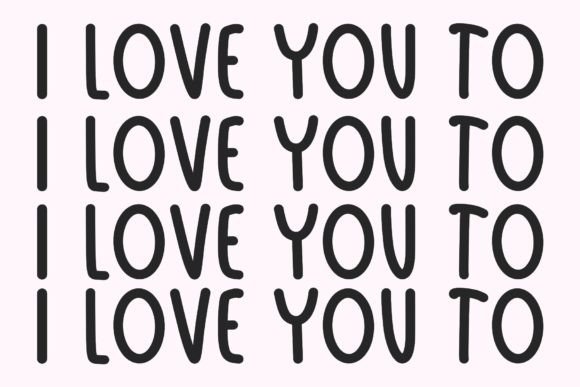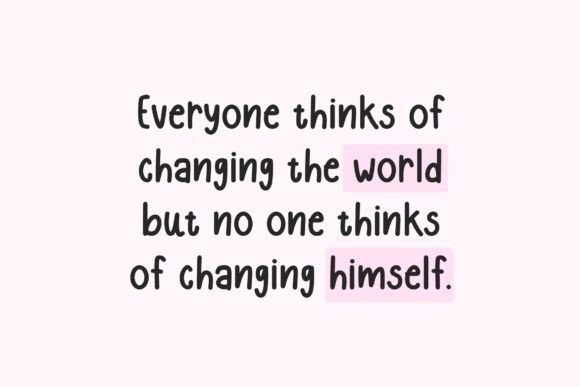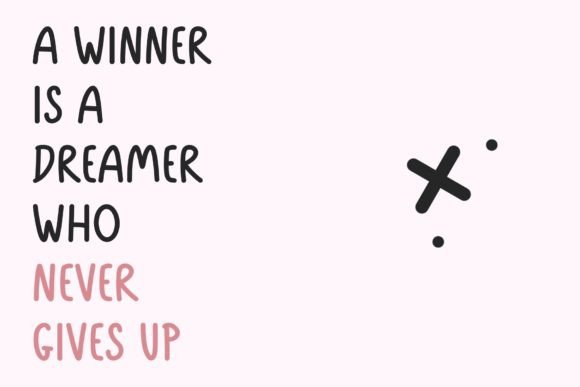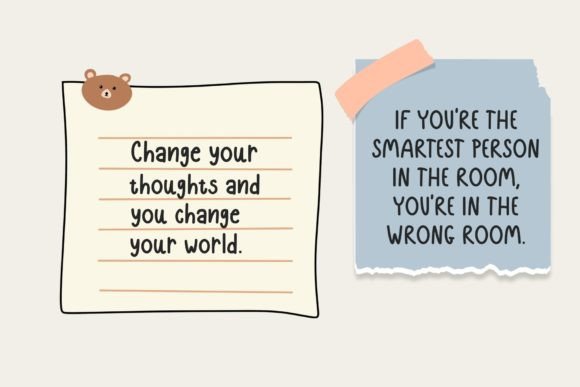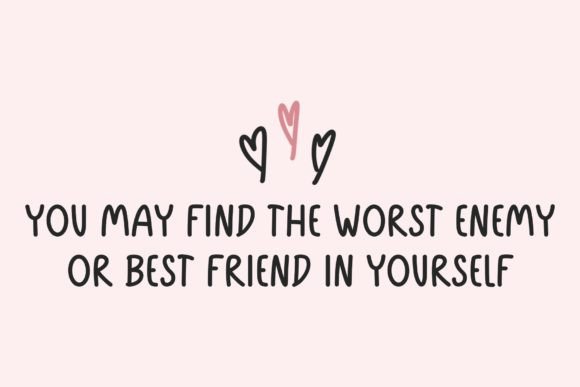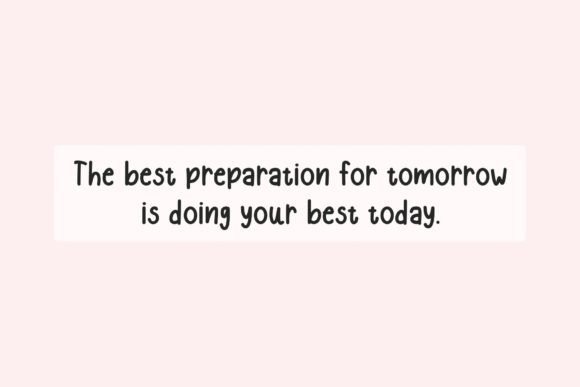
Introducing Easy Write Font: The Sweet and Friendly Handwritten Font
Are you a designer or crafter looking for a font that can add a personal touch to your projects? Look no further than Easy Write Font, a sweet and friendly handwritten font that’s perfect for a wide range of designs. With its natural and unique style, Easy Write Font is incredibly versatile and can be used in a variety of creative projects.
The Characteristics of Easy Write Font
Easy Write Font is a handwritten font that exudes a sense of warmth and friendliness. Its natural and unique style makes it stand out from other fonts, and its sweetness is sure to capture the hearts of your audience. The font’s irregularities and imperfections give it a human touch, making it perfect for designs that require a personal and approachable feel.
The Benefits of Using Easy Write Font
So, why should you choose Easy Write Font for your designs? Here are just a few benefits of using this amazing font:
- Versatility: Easy Write Font is incredibly versatile and can be used in a wide range of designs, from invitations and greeting cards to logos and branding materials.
- Unique Style: The font’s natural and unique style makes it stand out from other fonts, ensuring that your designs will be noticed.
- Easy to Read: Despite its handwritten nature, Easy Write Font is easy to read, making it perfect for designs that require a lot of text.
- Customizable: Easy Write Font can be customized to fit your design needs, allowing you to adjust the font size, color, and style to suit your project.
How to Use Easy Write Font in Your Designs
Using Easy Write Font in your designs is easy! Here are a few tips to get you started:
- Pair it with Other Fonts: Easy Write Font pairs well with other fonts, so don’t be afraid to experiment with different font combinations.
- Use it for Headings and Titles: The font’s unique style makes it perfect for headings and titles, adding a touch of personality to your designs.
- Add it to Your Branding Materials: Use Easy Write Font in your branding materials, such as logos, business cards, and letterheads, to add a personal touch.
Design Ideas Using Easy Write Font
Easy Write Font is incredibly versatile, and the design possibilities are endless! Here are a few ideas to get you started:
- Invitations and Greeting Cards: Use Easy Write Font to create beautiful and personalized invitations and greeting cards.
- Logos and Branding Materials: Add a personal touch to your logos and branding materials with Easy Write Font.
- Social Media Graphics: Use Easy Write Font to create engaging and personalized social media graphics.
- Blog Posts and Articles: Add a touch of personality to your blog posts and articles with Easy Write Font.
In conclusion, Easy Write Font is a sweet and friendly handwritten font that’s perfect for designers and crafters looking to add a personal touch to their projects. With its natural and unique style, Easy Write Font is incredibly versatile and can be used in a wide range of designs. So why not give it a try and see the difference it can make in your designs?